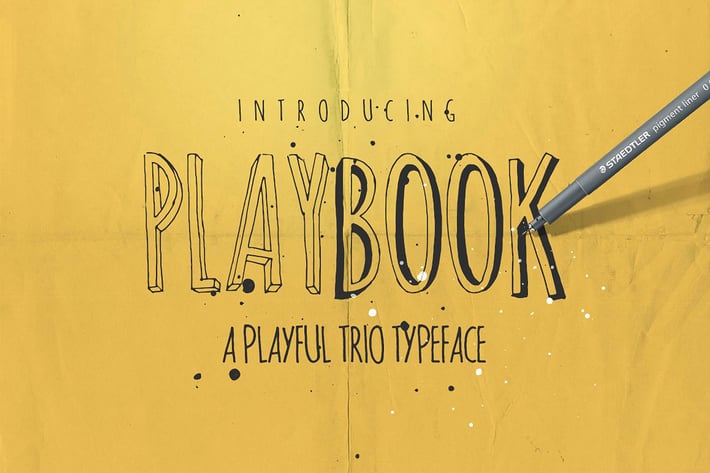
Playbook Font Family
Introducing Playbook Typeface a very playful trio typefaces.
This type family contents 3 fonts: Playbook Outline, Playbook Fill and Playbook Regular.
You can use this fonts for creative headlines and titles.